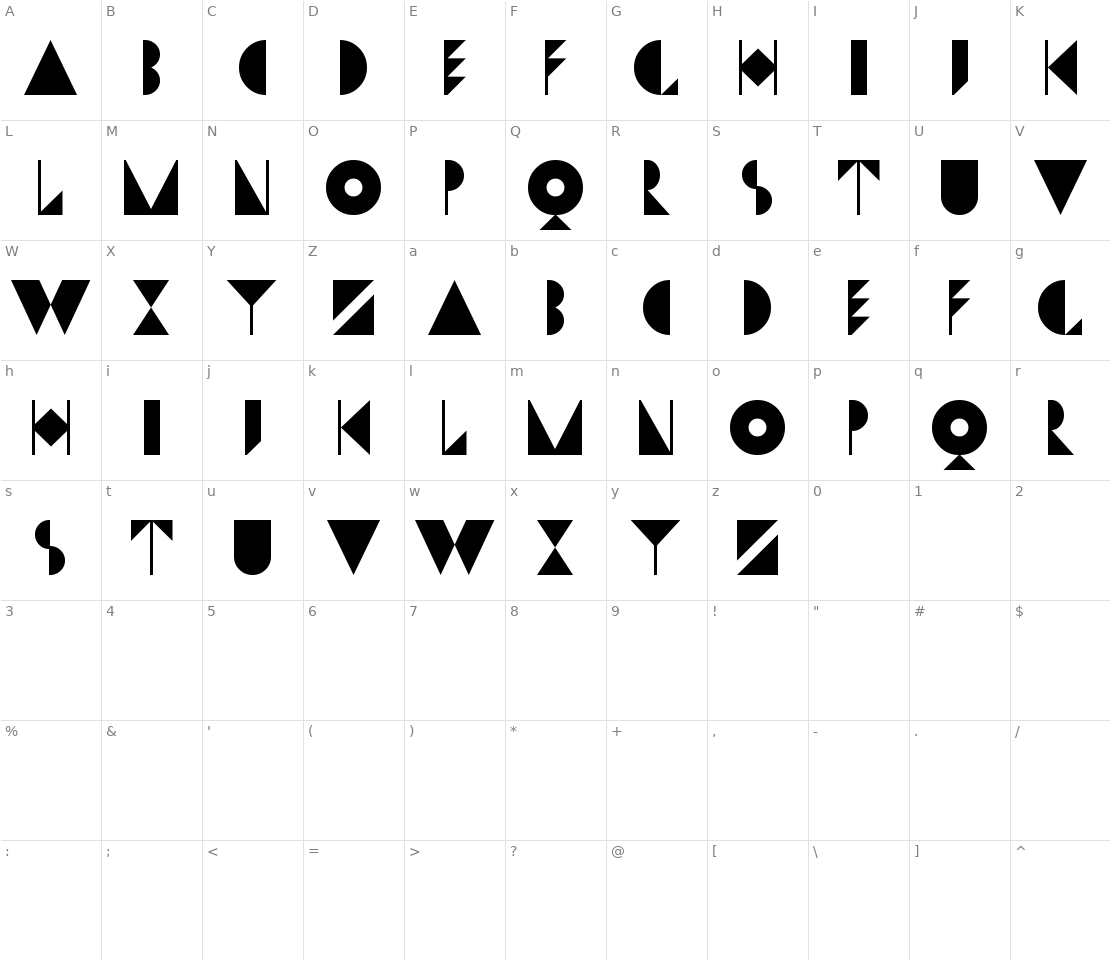
Dwiggins Initials KK
Dwiggins Initials KK is a decorative initials font by koeiekat, inspired by the bold geometric ornamental work of W.A. Dwiggins, one of the most influential American type designers and book artists of the early 20th century. The letterforms are heavy and distinctly Art Deco, with strong modernist geometry that echoes the decorative flourishes Dwiggins created for his book designs. Built for drop caps, monograms, and display contexts where each letter needs to stand on its own as a piece of graphic design.